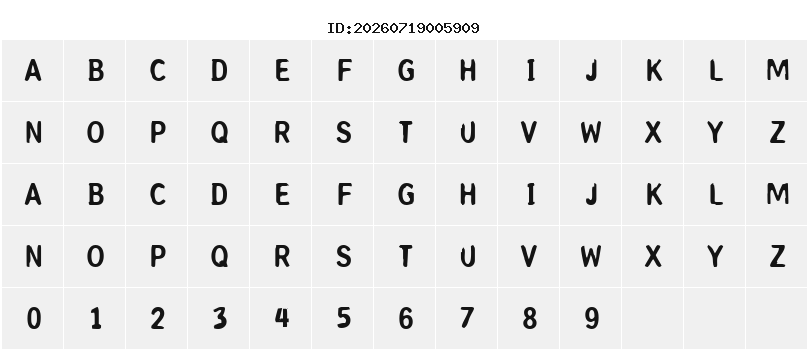
• Font Name: Coperniq
About Coperniq.ttf
Coperniq.ttf is a modern, elegant sans-serif font designed for ultimate readability and visual harmony. Perfect for branding, headlines, web design, and print materials.